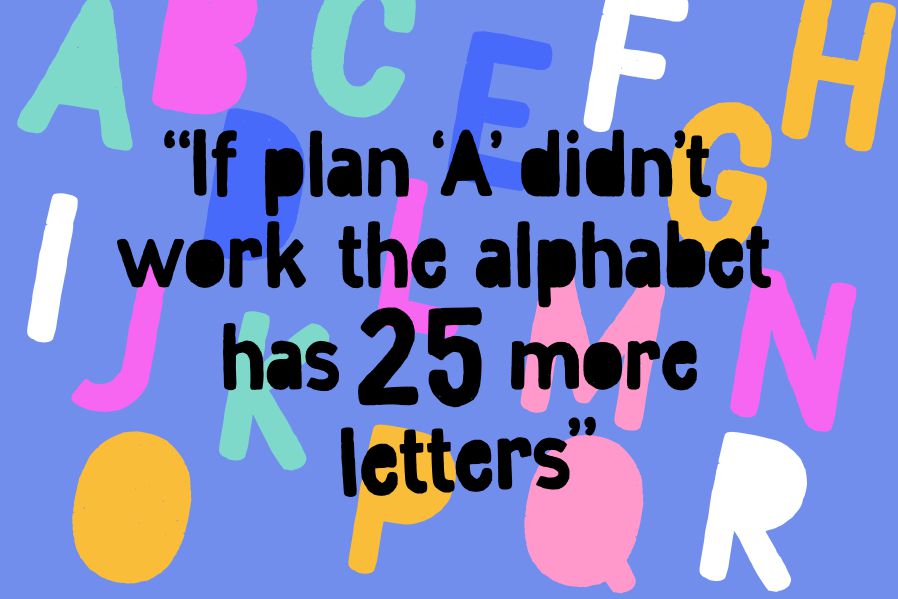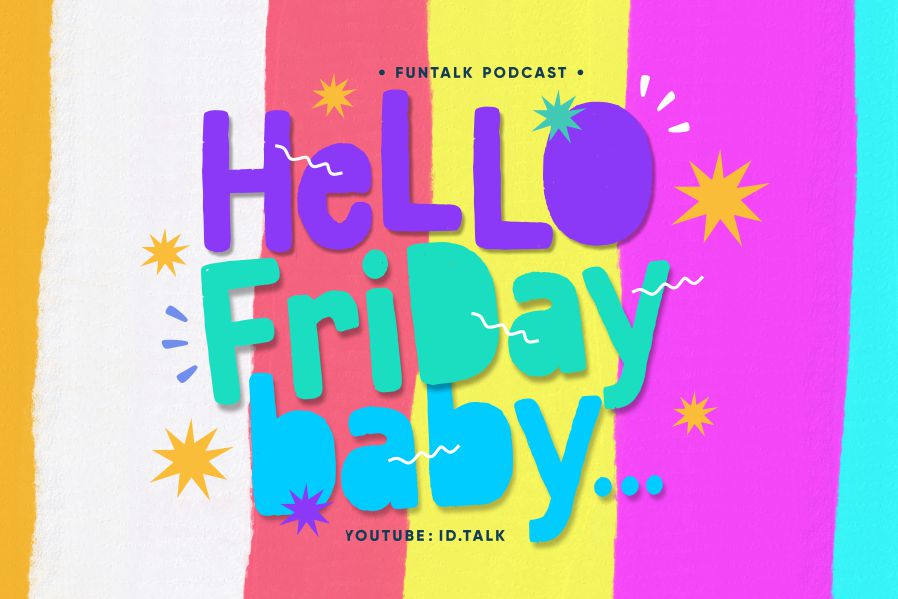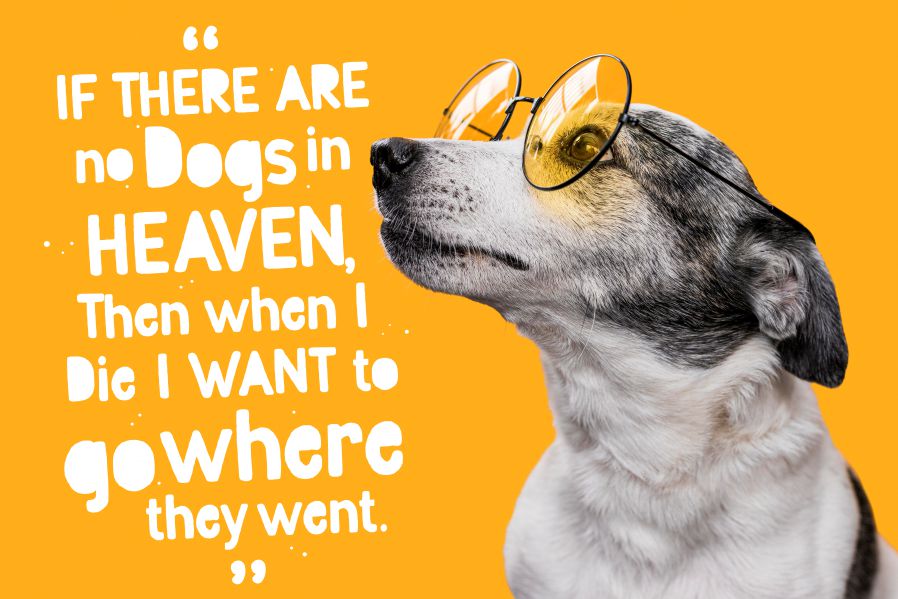
Rumini Namamu Font
Rumini Namamu Display Font
It’s a textured sans serif font. Rumini Namamu is perfect for product packaging, branding project, magazines, social media, weddings, or just used to express words above the background.